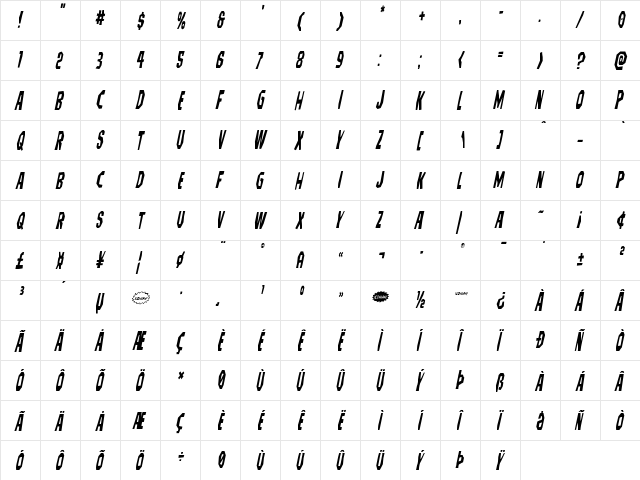
Hitchblock Condensed Italic Condensed Italic
Design Context for Hitchblock Condensed Italic Typeface
Hitchblock Condensed Italic is a composed and adaptable typeface that performs quietly and consistently across a wide range of design contexts. The dynamic lean of this cut emphasises speed and emphasis in any layout. The condensed width makes it efficient for tight spaces without sacrificing legibility.
Pro Tip: Use Hitchblock Condensed Italic for emphasis, pull quotes, and subheadings where its slanted energy can add rhythm to the layout.